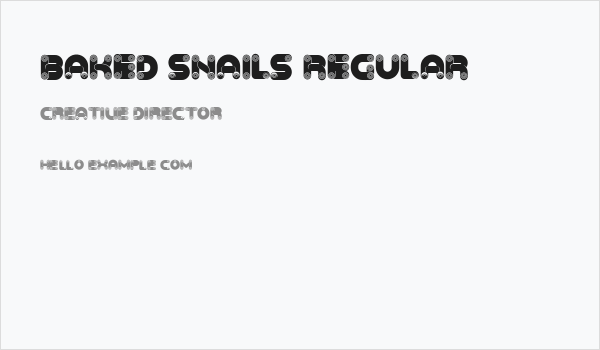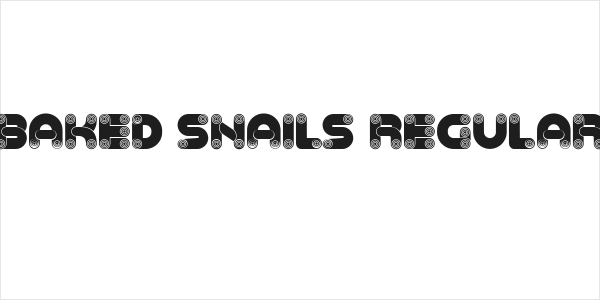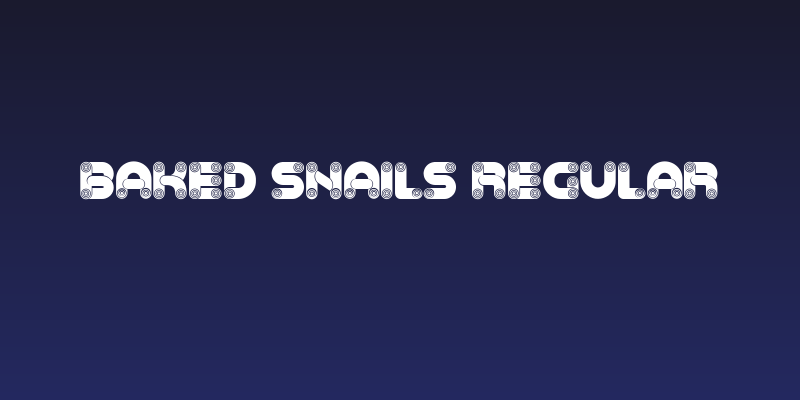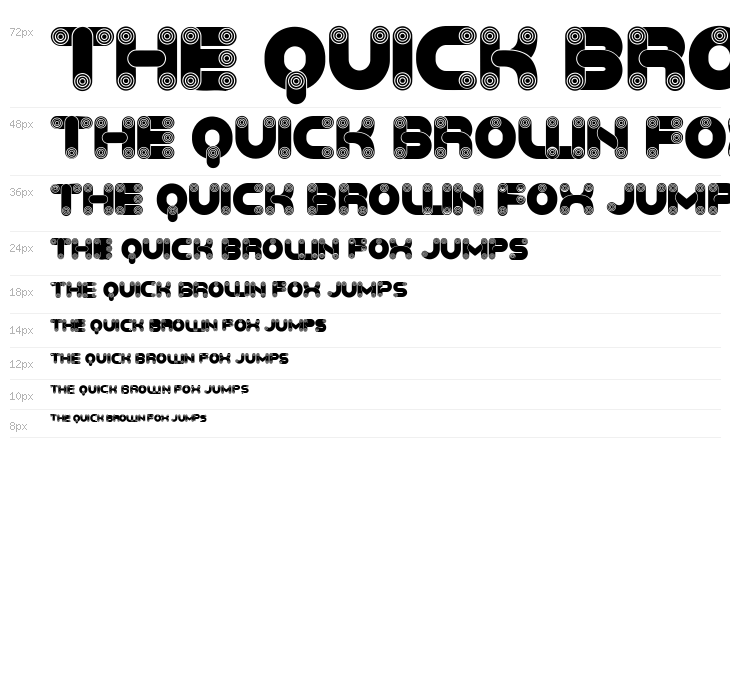
Baked Snails Regular Font
Baked Snails Regular Description
This font features a unique and playful design with a decorative spiral pattern integrated into each character. The letters are bold and rounded, giving them a substantial presence. The spirals add a whimsical touch, making the font stand out as a creative and artistic choice. The overall appearance is both modern and fun, suitable for projects that require a distinctive and eye-catching typeface. The characters are evenly spaced, ensuring readability despite the intricate design elements.
Overall StyleModern, Decorative
Proposed ProjectsIdeal for creative projects such as children's book covers, playful branding, posters, and artistic invitations.